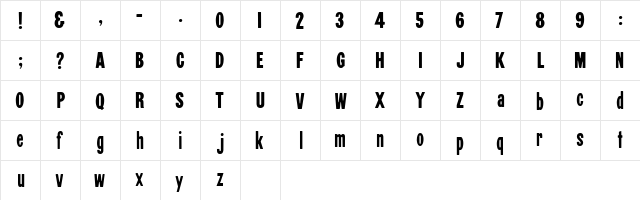
Black Condensed HPLHS
Black Condensed offers clean, dependable letterforms without strong stylistic allegiance, making it a practical choice for designers who need flexibility. Its narrow stance lets it pack a punch even in space-constrained designs.